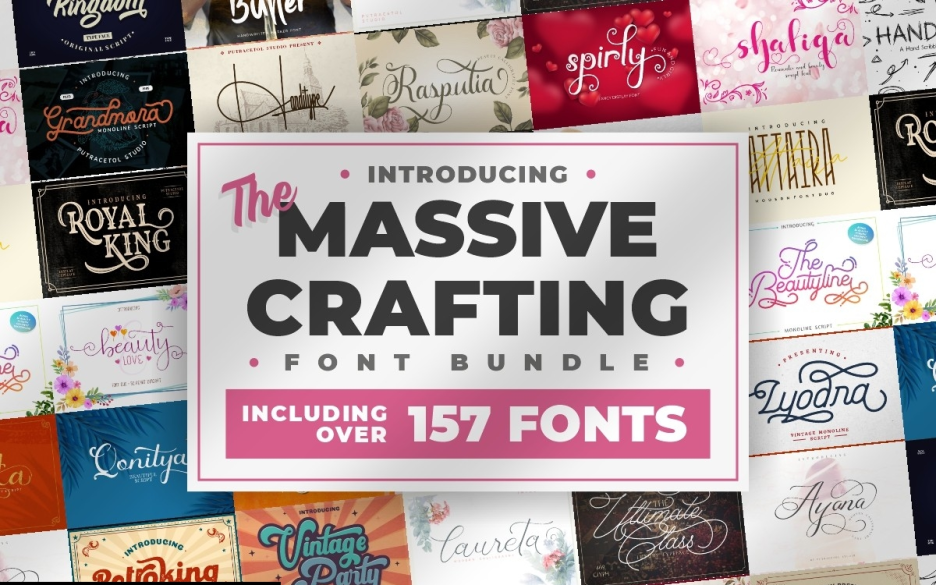
The Massive Crafting Font Bundle
The Massive Crafting Font Bundle offers a diverse selection of high-quality fonts designed to elevate your creative projects. This collection features a variety of styles, including script, sans-serif, serif, and decorative fonts, making it perfect for any crafting need.
• Multiple font styles: script, serif, sans-serif, and decorative
• Various weights for added versatility
Each font in this bundle is crafted with attention to detail, ensuring readability and aesthetic appeal. Ideal for both digital and print applications, these fonts can be used for branding, logos, invitations, and more.